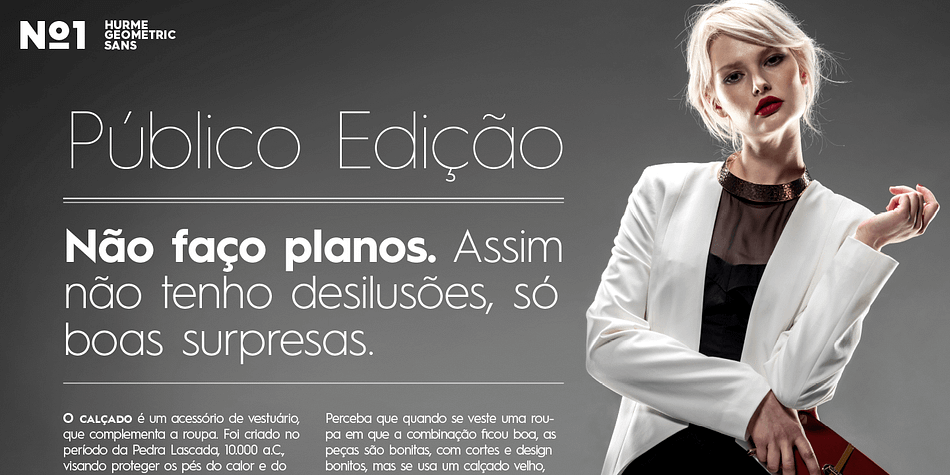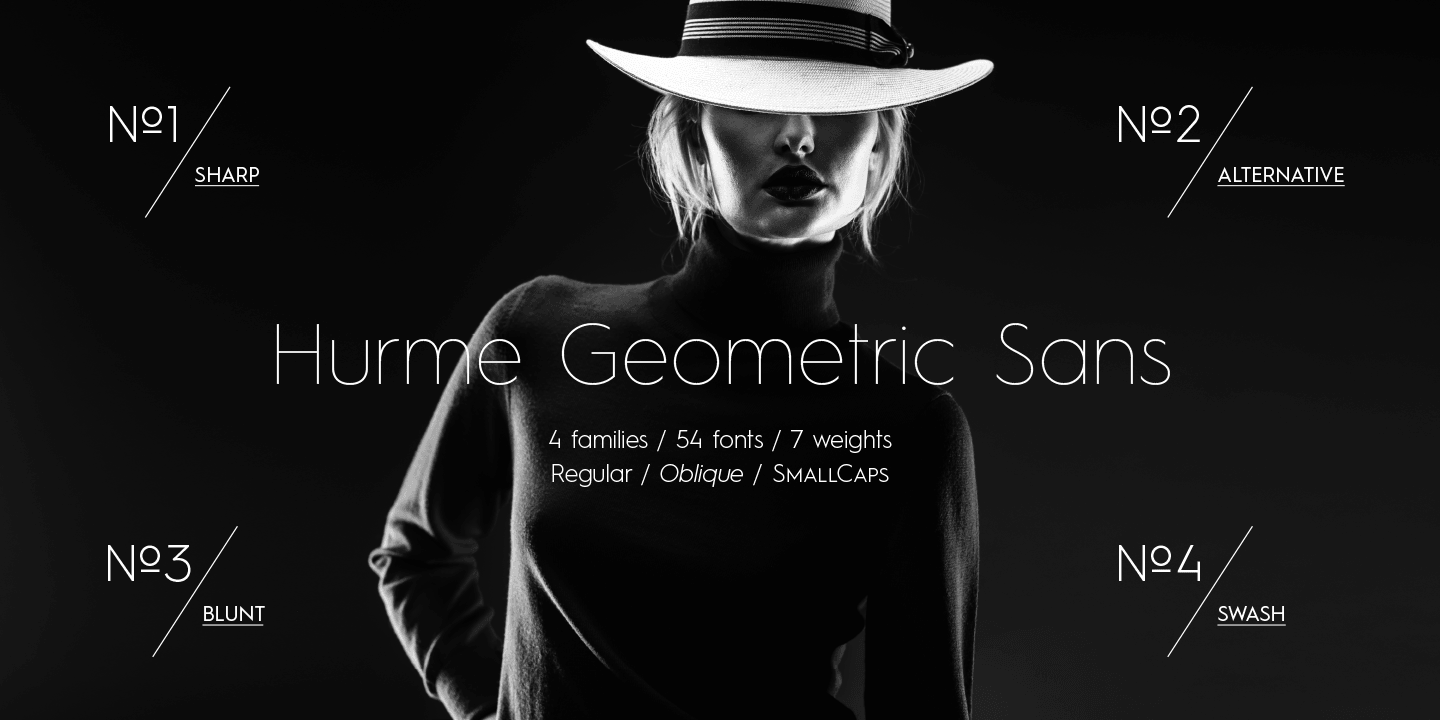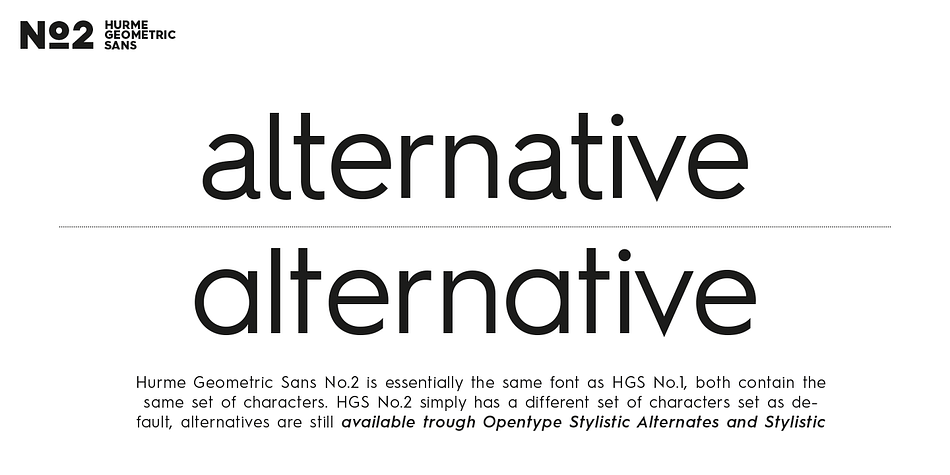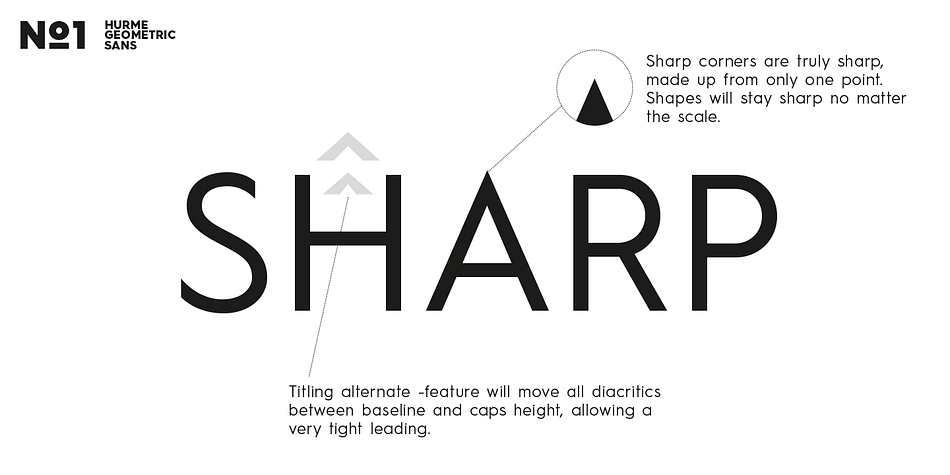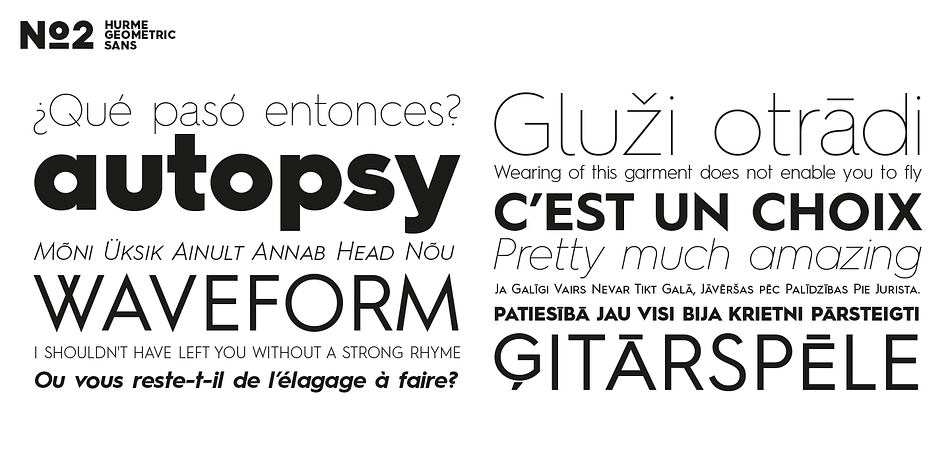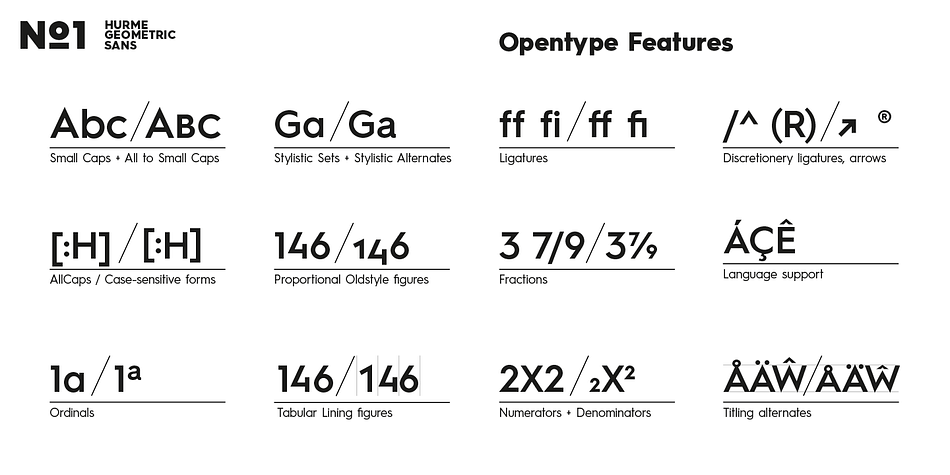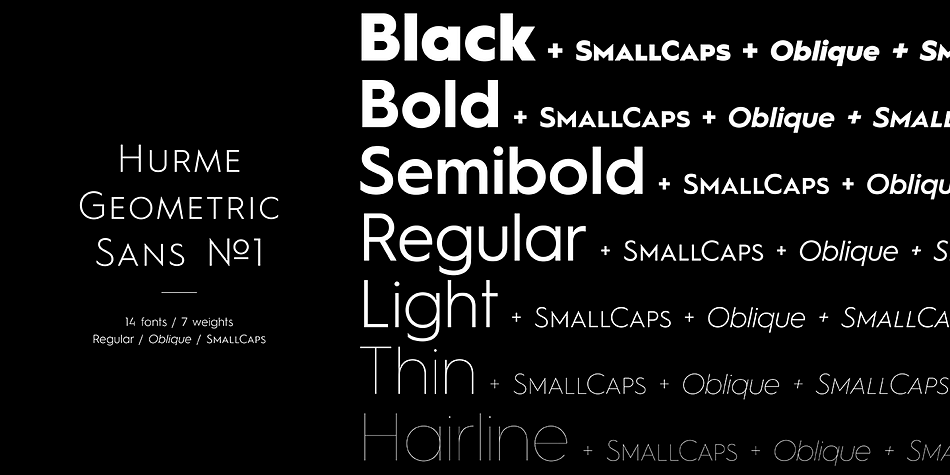
Hurme Geometric Sans 1 & 2 is a sans serif font family. This typeface has twenty-eight styles and was published by Hurme Design.
Hurme Geometric Sans No.1 and No.2 each include seven weights with true Small Caps and obliques. Please see the specimen PDF for complete overview of the typeface and its features. Alternate characters and other Opentype features make for a versatile family that can be adjusted for specific needs. Hurme Geometric Sans No.1 and No.2 are essentially the same fonts, but with different sets of characters set as default. All the other characters can be accessed through the Opentype features. When buying HGS No.1, you will receive corresponding weights of HGS No.2 free of charge.
Hurme Geometric Sans is a series of font families all with distinctive qualities and features but share the same basic construction and proportions. See also the other Hurme Geometric Sans families.